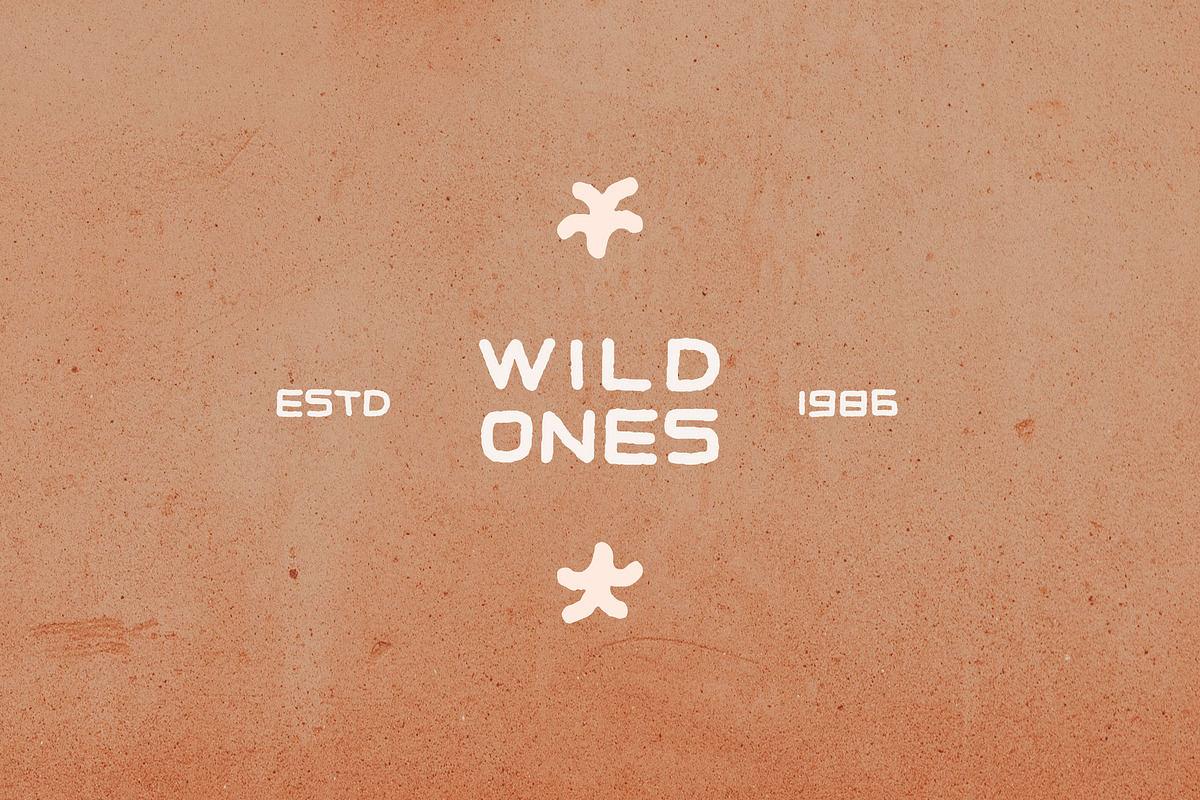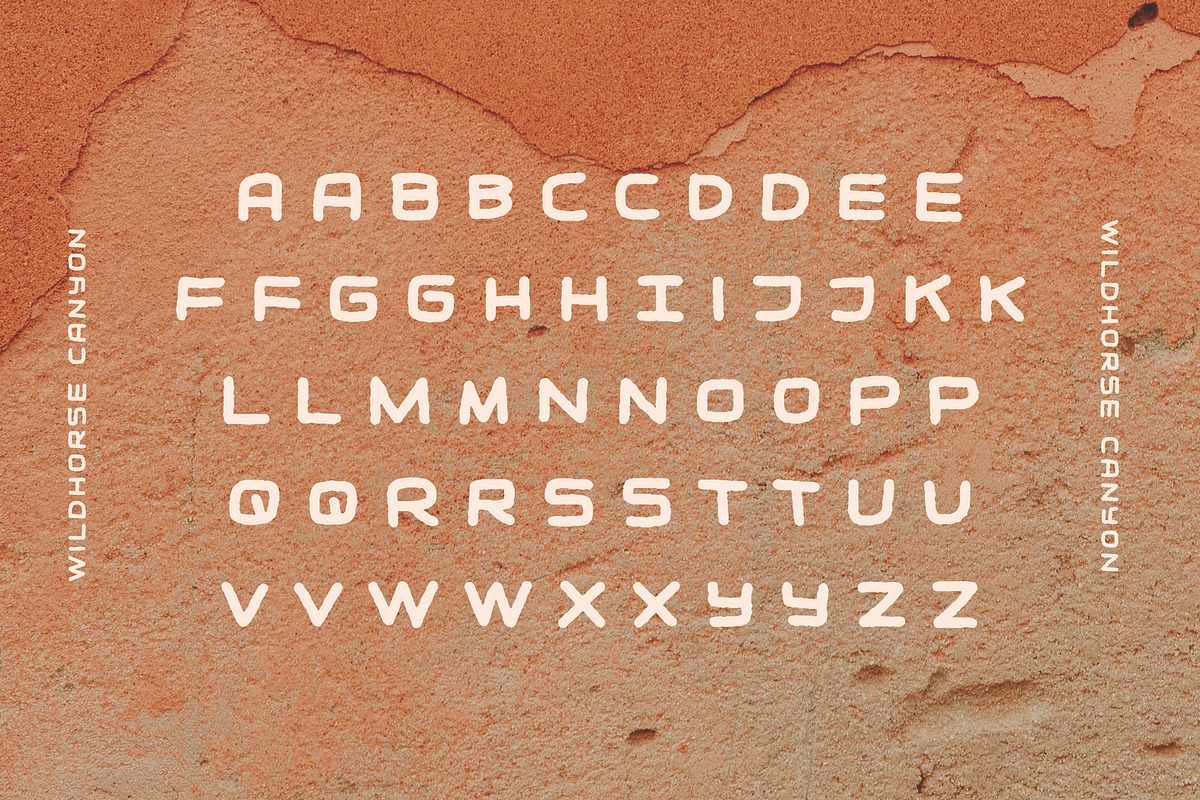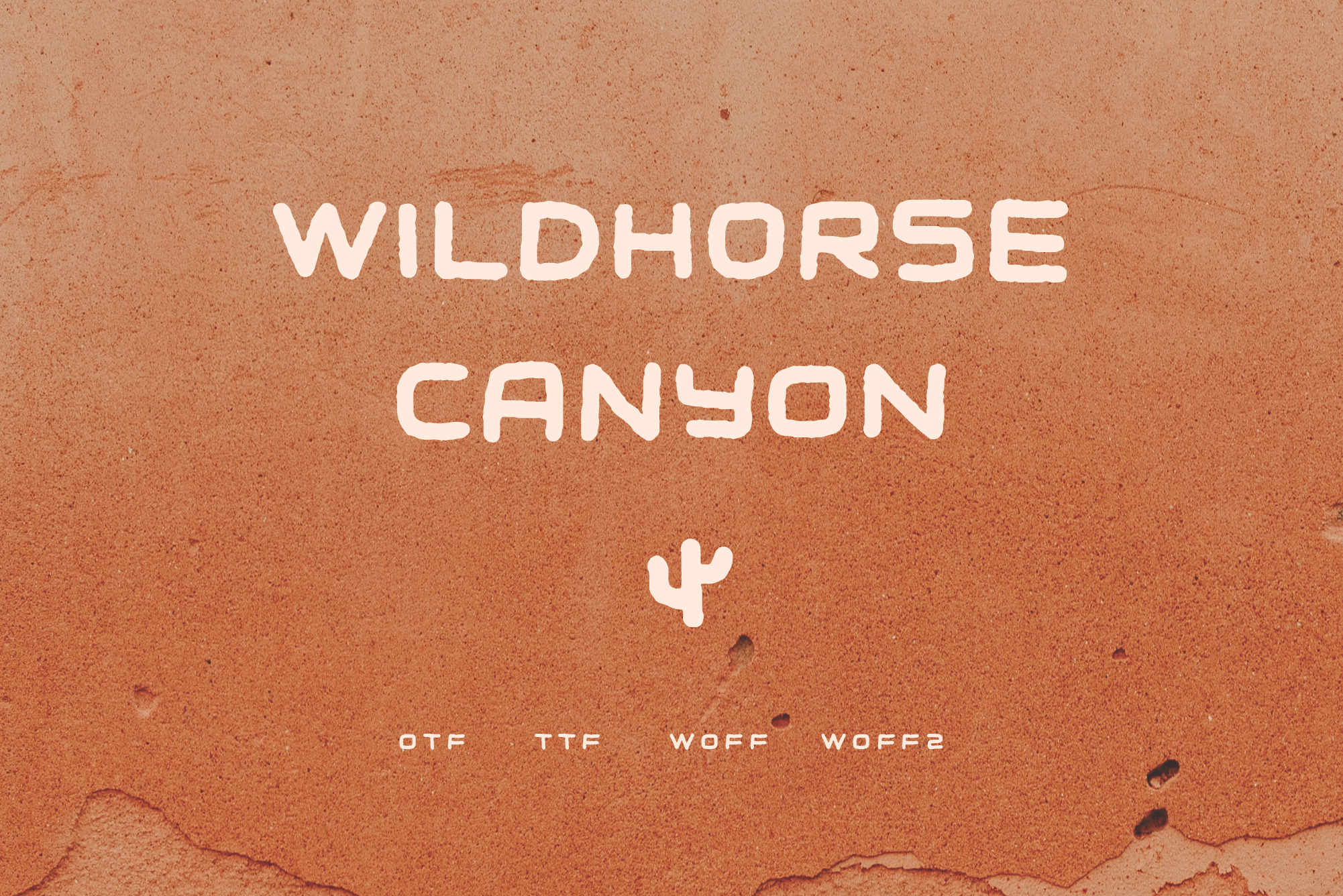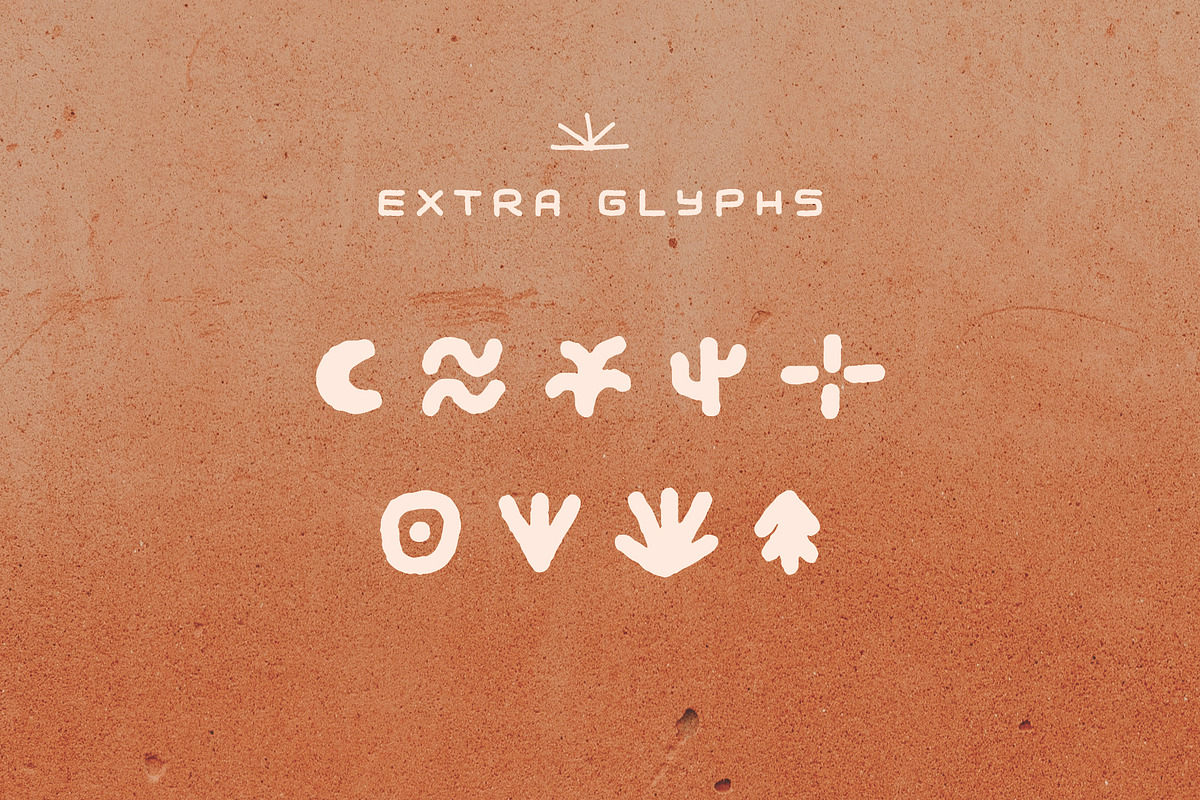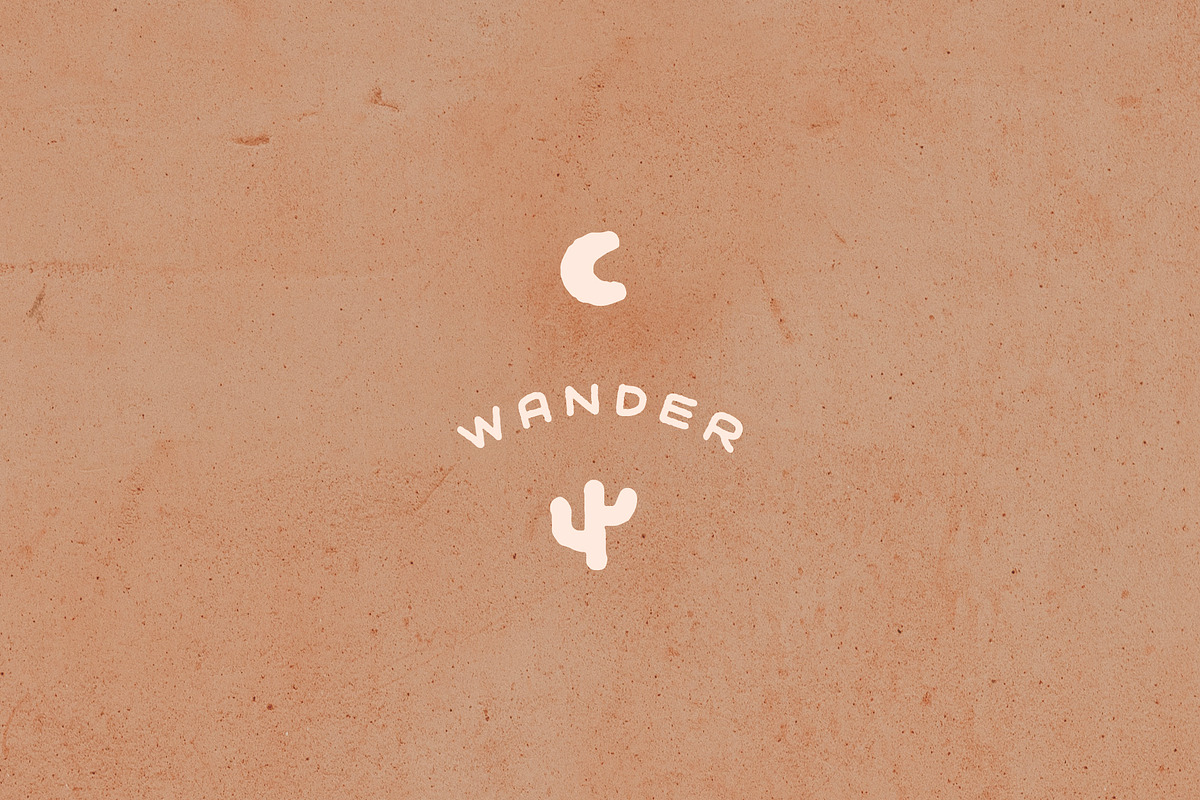
Wildhorse Canyon | Rugged Font
Wildhorse Canyon is an inspired sans-serif hand font with extra illustrated alternate glyphs to elevate your designs - from branding, logos, and promotional materials, to instagram posts, invitations, and print-on-demand graphics.
Create stunning logos, modern branding, and rustic designs!